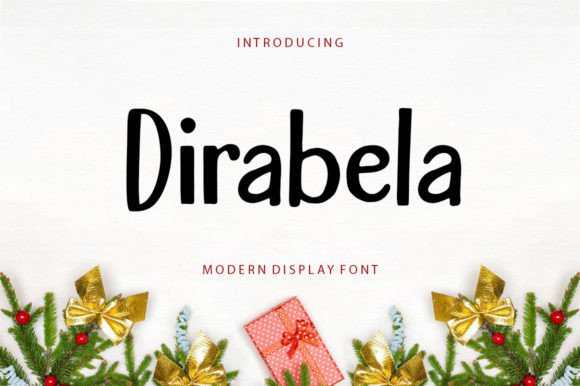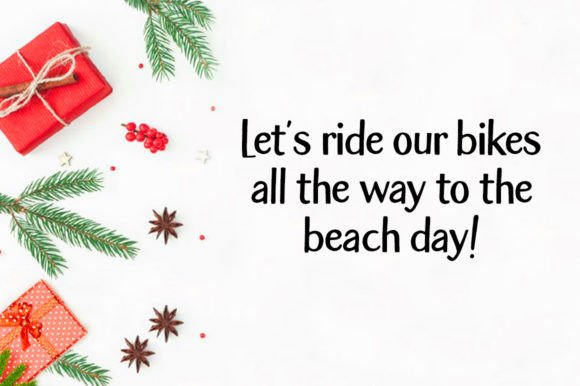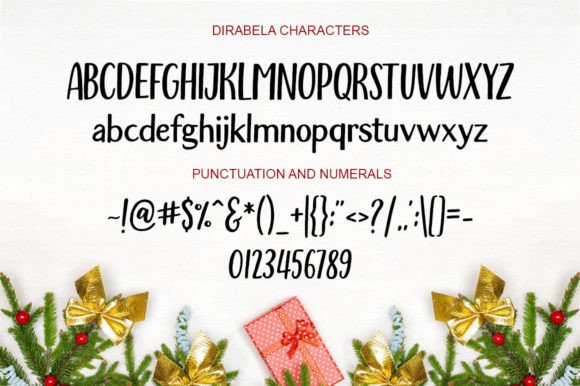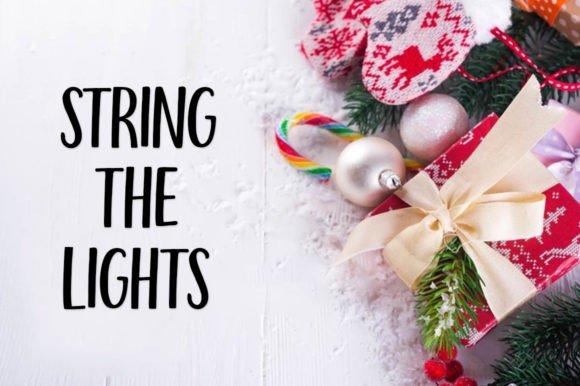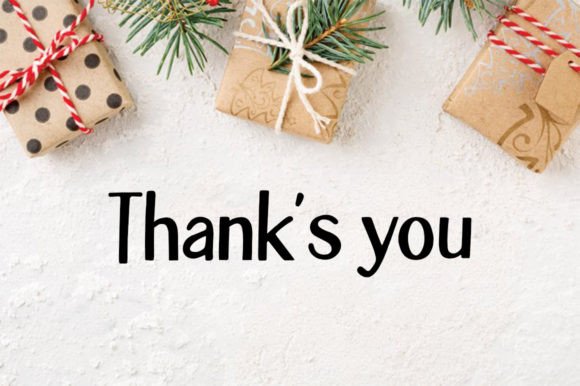
Dirabela Font Font
About Dirabela Font
Dirabela is a beautiful and sophisticated handwritten font with a bold twist. Get inspired by its stunning swashes!